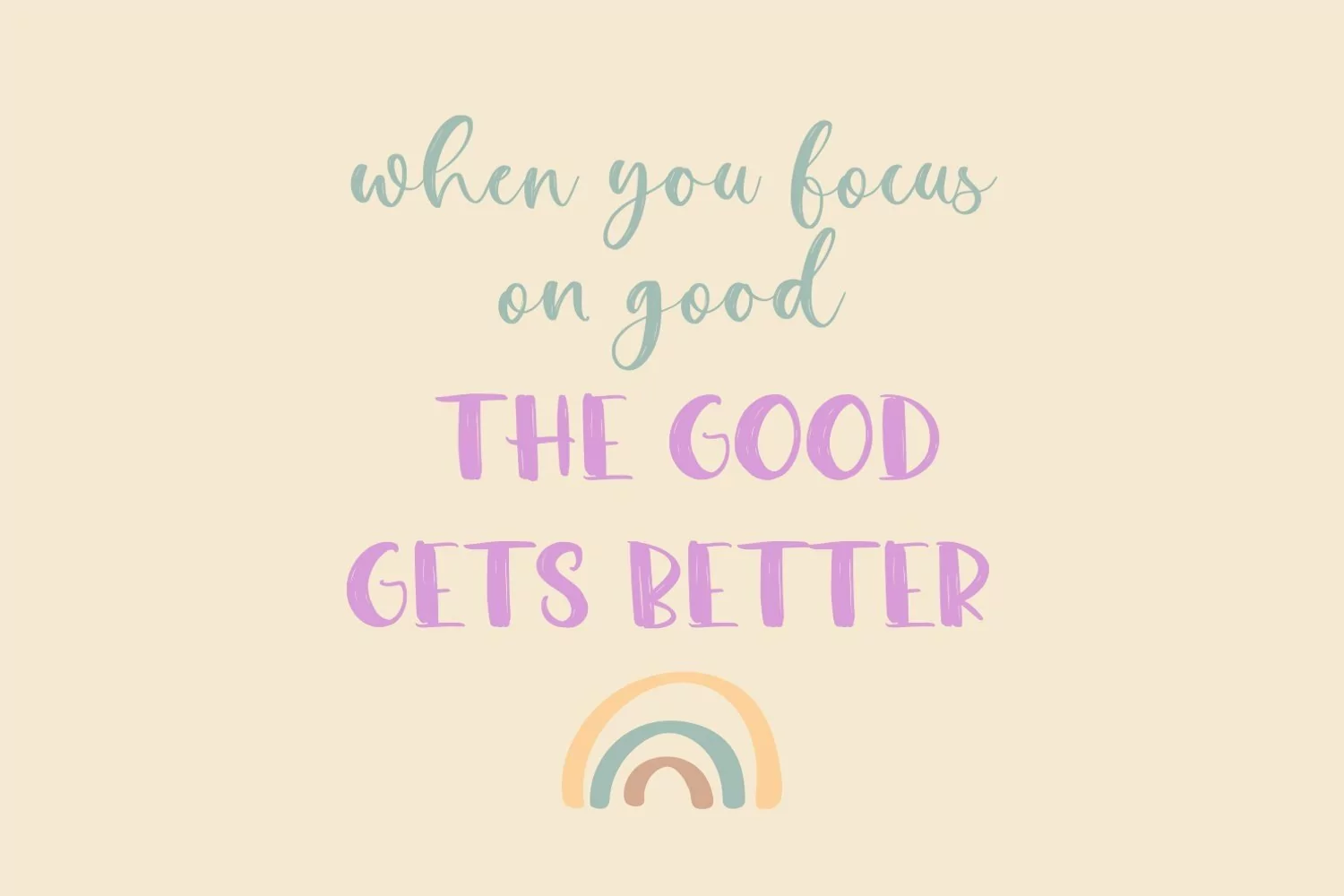
Sweet Plant Font Duo - textured handwritten font duo
Sweet Plant.woff - all uppercase sans serif font, numbers, punctuation
Sweet Plant Script.woff - standart and alternate uppercase, lowercase, numbers, punctuation